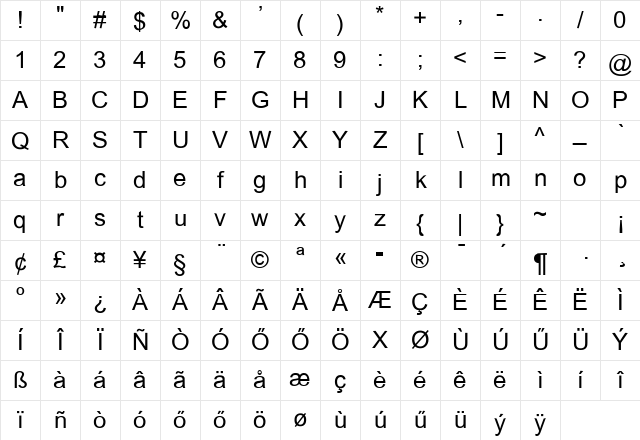
H_Dixon Regular Free Font
H_Dixon Regular
H_Dixon Family
Complete H_Dixon Regular glyph index. Displaying only characters natively supported by H_Dixon Regular font.
Design Context for H_Dixon
H_Dixon is a composed and adaptable typeface that performs quietly and consistently across a wide range of design contexts.